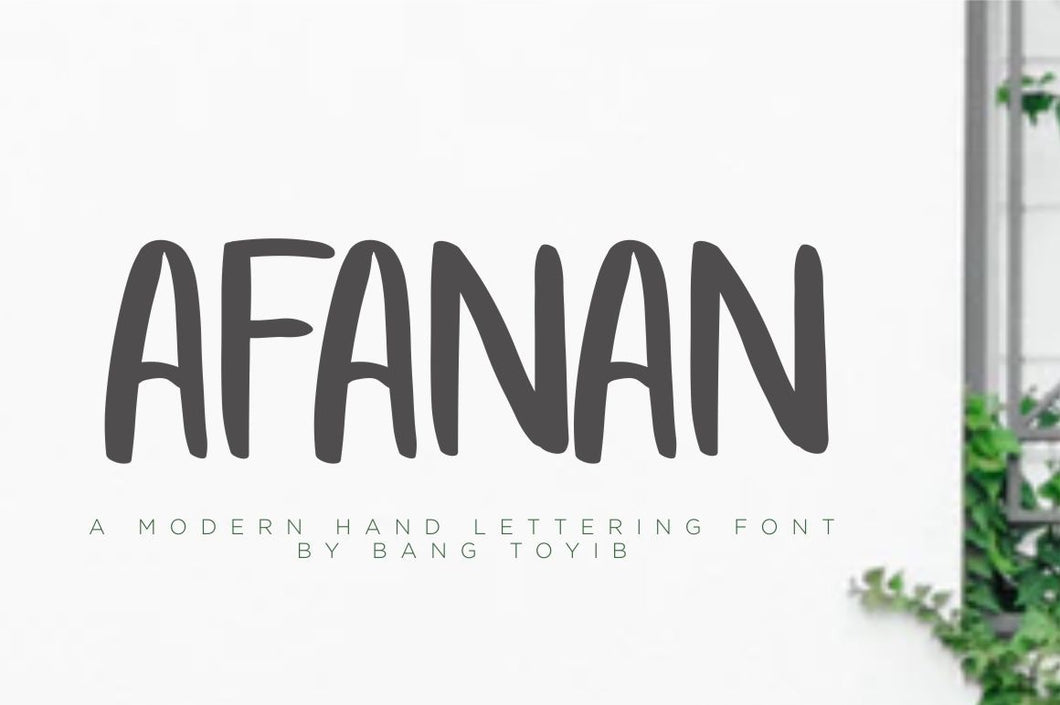
Introducing you to the absolutely beautiful free afanan - handmade font. Download this free font from the original source of Font Bundles. This is absolutely fancy font so you can easily make world-class designs.